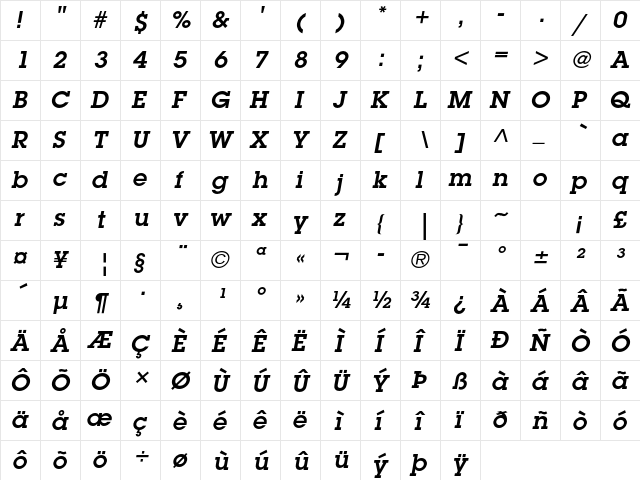
ITC Lubalin Graph Std Demi Oblique
| Designer | Herb Lubalin |
Design Context for ITC Lubalin Graph Std Typeface
ITC Lubalin Graph Std offers clean, dependable letterforms without strong stylistic allegiance, making it a practical choice for designers who need flexibility. The slanted form adds forward momentum and visual energy.
Pro Tip: Try ITC Lubalin Graph Std for annotation and caption copy alongside an upright companion — the contrast in angle creates a dynamic but ordered typographic system.